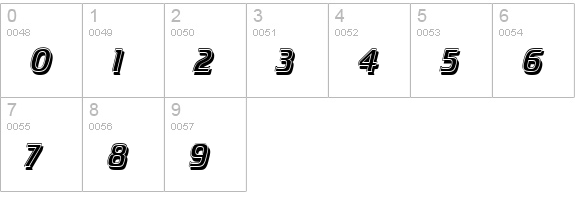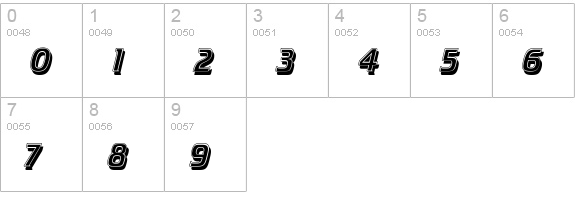
Crillee Italic Inline Shad Plain Font Details
Crillee Italic Inline Shad Plain is a distinctive, italic variant in the Crillee typeface family \xE2\x80\x94 well suited to design and typography projects.
Crillee Italic Inline Shad Plain font is a stylish and elegant typeface that adds a touch of sophistication to any design. With its unique inline shad effect, this font is perfect for creating eye-catching titles and headings. The italic style gives a modern twist to the classic Crillee font, making it a versatile choice for various projects. Best of all, Crillee Italic Inline Shad Plain font is available for free download at FontsMarket.com. Whether you're working on a print or digital project, this font will elevate your design and make a lasting impression. Don't miss out on this opportunity to enhance your typography collection with this stunning and free font!